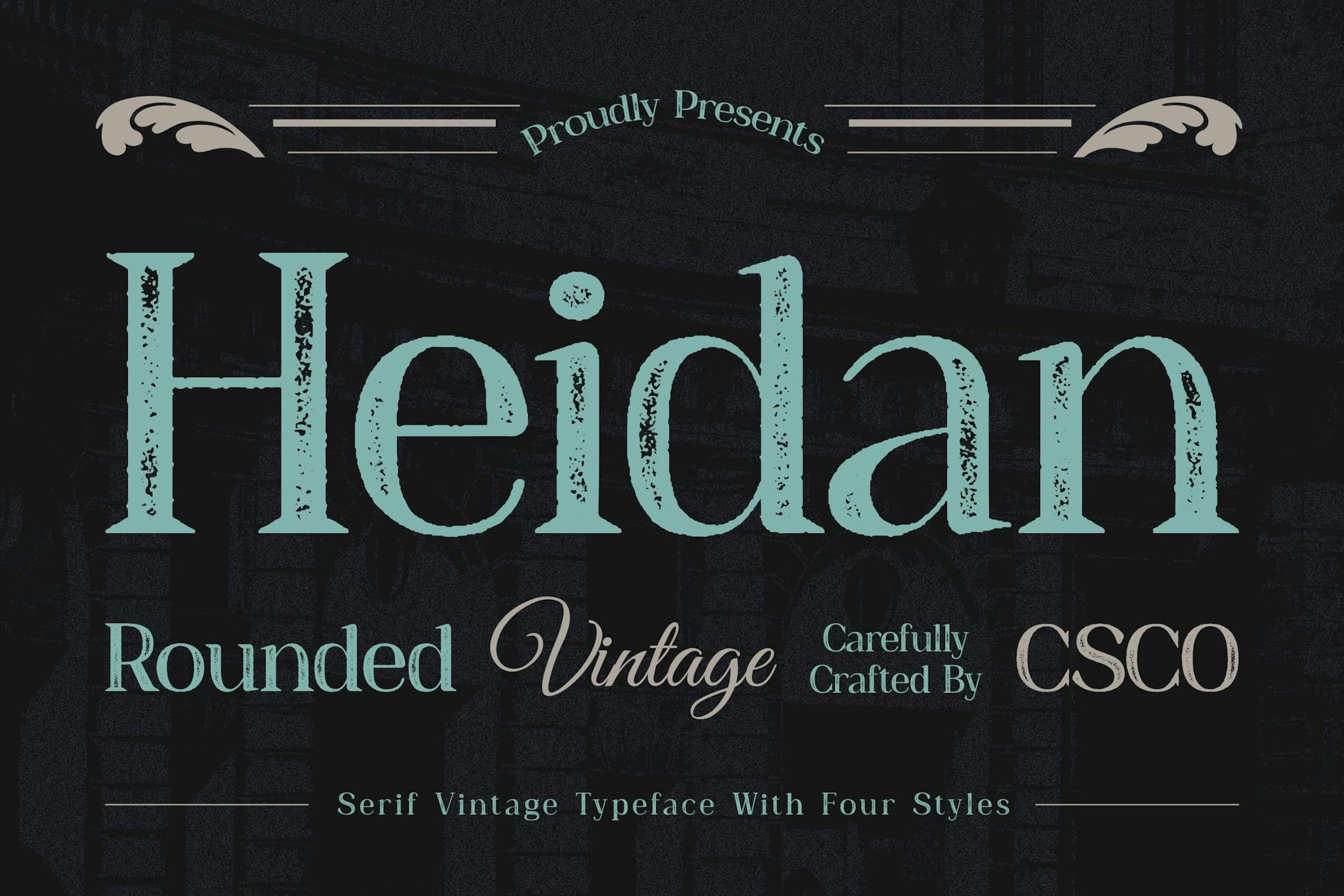
Heidan Rounded Vintage Font
The Heidan Rounded Vintage Font is perfect for retro branding, vintage packaging design, nostalgic posters, classic diner signage, old-school product labels, mid-century logos, retro gaming interfaces, and throwback advertising campaigns.
What makes Heidan Rounded Vintage Font so exciting is its perfect fusion of friendly rounded letterforms with authentic vintage character that instantly transports viewers to a bygone era. This captivating typeface combines the warmth and approachability of rounded typography with carefully crafted retro details that evoke the golden age of mid-20th century design. The font's soft, curved edges create a welcoming and nostalgic feeling while maintaining the distinctive vintage aesthetic that makes it stand out from contemporary alternatives. Its balanced proportions and harmonious spacing ensure excellent readability while delivering that unmistakable classic charm that resonates with audiences across all generations.
The Heidan Rounded Vintage Font family includes versatile variations designed to meet comprehensive retro design needs. The collection typically features multiple weights from Light to Bold, each preserving the signature rounded characteristics and vintage appeal. Many versions include italic styles, decorative alternates with enhanced period details, stylistic ligatures, and extended character sets supporting multiple languages for international vintage-inspired branding projects.
The font's remarkable adaptability works beautifully across digital and print mediums, from modern websites with retro themes to traditional packaging design. Its carefully engineered rounded forms maintain clarity at all sizes while preserving the distinctive vintage character that makes it so appealing to contemporary audiences seeking nostalgic authenticity.
Professional designers and creative agencies worldwide trust this charming vintage font for projects requiring genuine retro appeal and friendly accessibility. Whether developing brand identities for nostalgic businesses, creating marketing materials for vintage-inspired products, or designing promotional content for entertainment properties, this font delivers the perfect combination of classic charm and modern functionality.